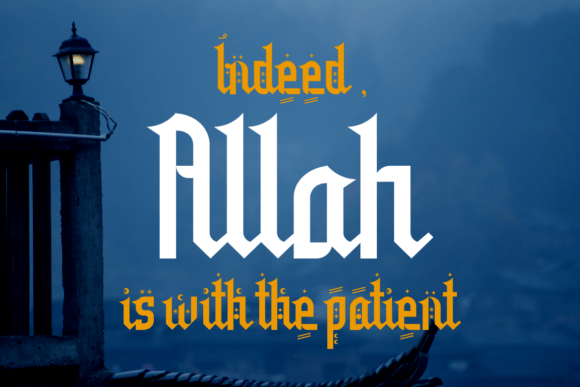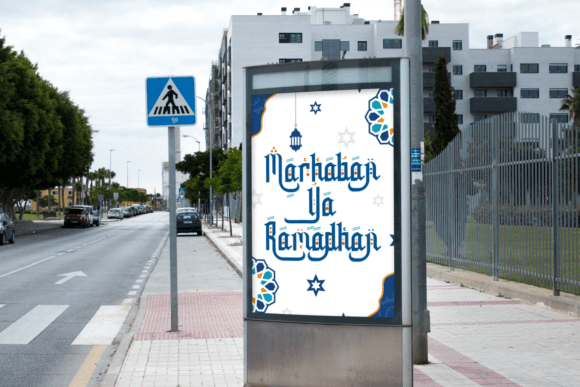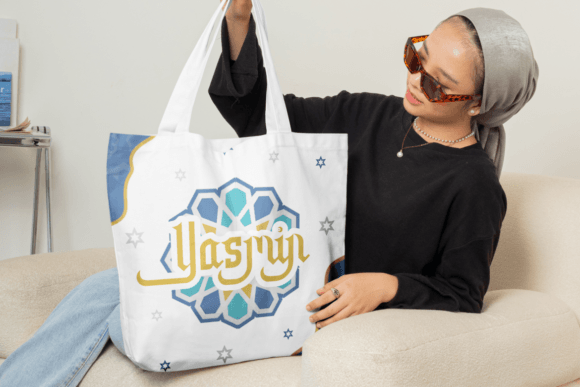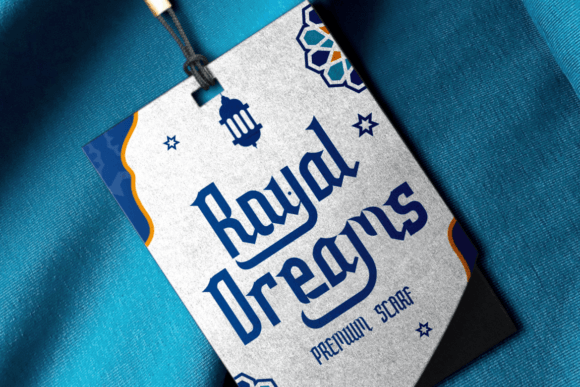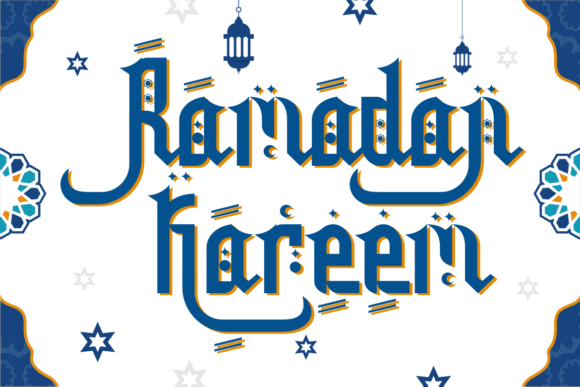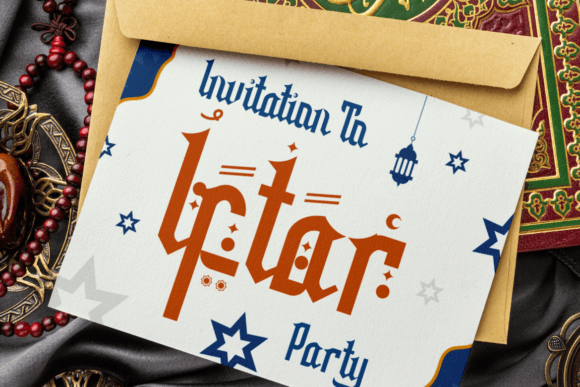
Introduction to Hikaya Mirage Font
Introducing Hikaya Mirage, an exquisite Arabic Display Font that embodies the enchanting beauty of the Arabian nights.
With its elegant curves and sophisticated design, Hikaya Mirage is more than just a typeface; itโs a journey through the rich tapestry of Arabic culture Each character is crafted with precision, reflecting the traditional calligraphy of the Arab world while infusing a modern twist that resonates with contemporary design aesthetics.
Key Features of Hikaya Mirage Font
Why Choose Hikaya Mirage Font?